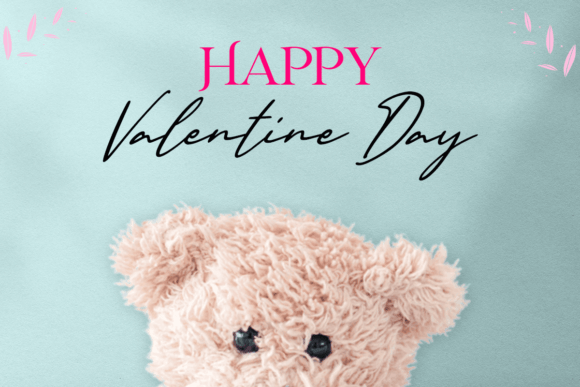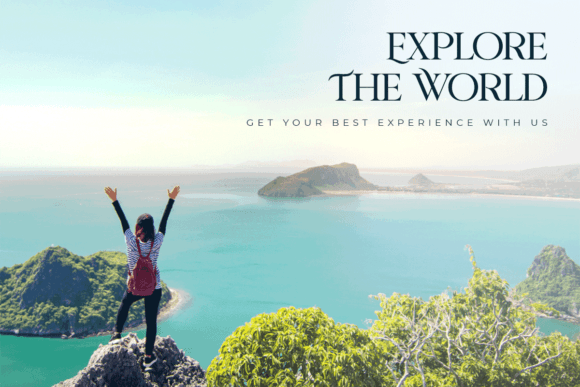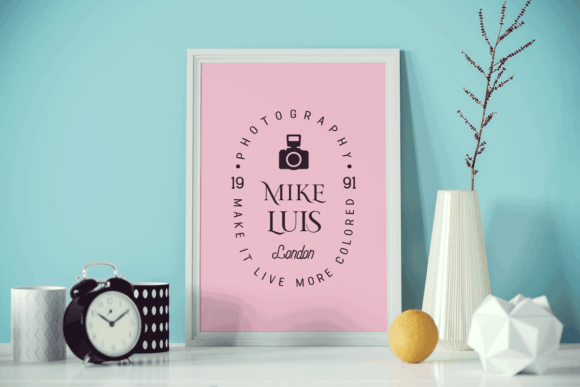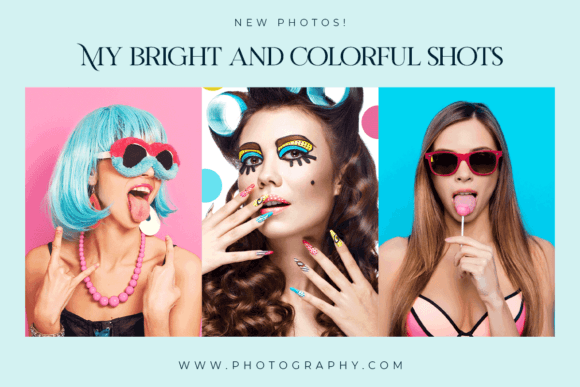
Introduction to Riverflows Font
Riverflows is an elegant and luxurious serif font, perfect for branding, logos, invitations, long text, and more.
Add it to any of your creative projects, and watch it bring your designs to life with their impeccable style and shape This font is PUA encoded which means you can access all of the amazing glyphs and ligatures with ease.
Key Features of Riverflows Font
Why Choose Riverflows Font?
Riverflows Font offers exceptional quality and versatility, making it a valuable addition to your design toolkit. Whether you’re creating for personal projects or commercial use, Riverflows Font delivers professional results.